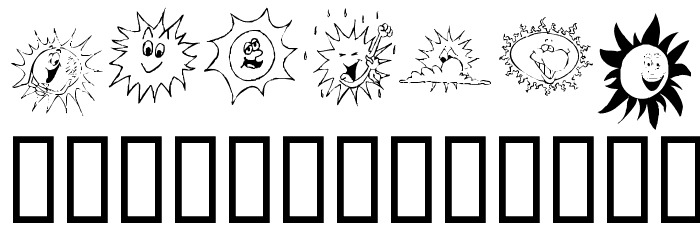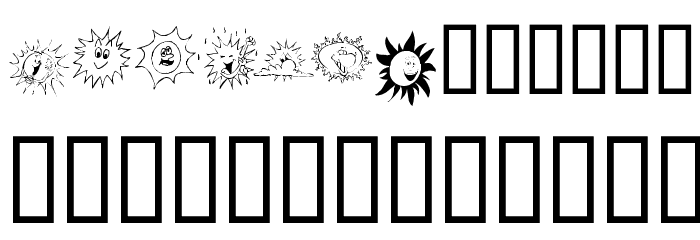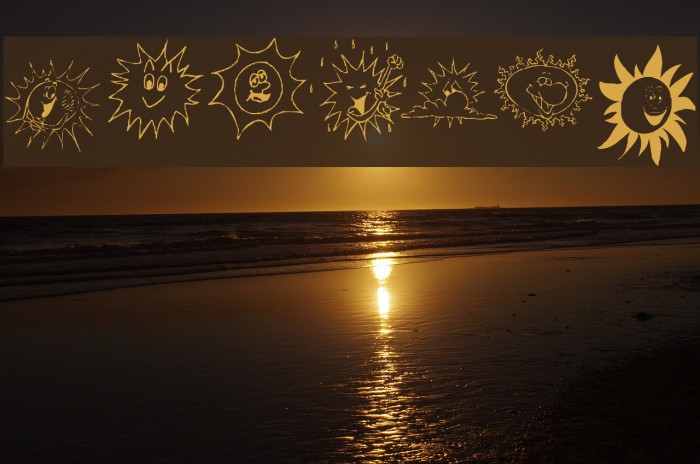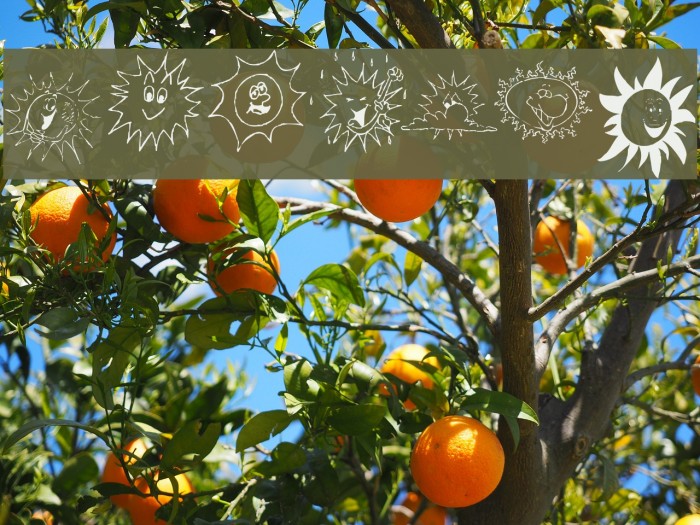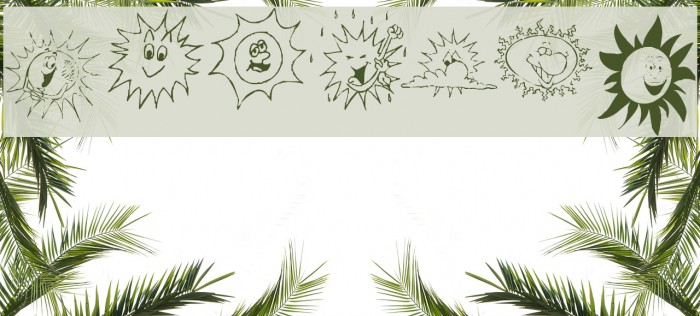
KR Sun Dings Font
This font is a collection of whimsical and playful sun-themed dingbats. Each character is a unique illustration featuring various sun designs with expressive faces and creative elements. The designs range from simple, smiling suns to more intricate depictions with added details like clouds and rays. The style is light-hearted and fun, making it suitable for projects that aim to convey a sense of joy and creativity. The illustrations are bold and clear, ensuring they stand out in any design.
A playful collection of sun-themed dingbats with expressive and whimsical designs.
- Proposed Projects: Ideal for children's books, greeting cards, summer-themed posters, and playful branding materials.
- Use Case: Logos, Decorative elements